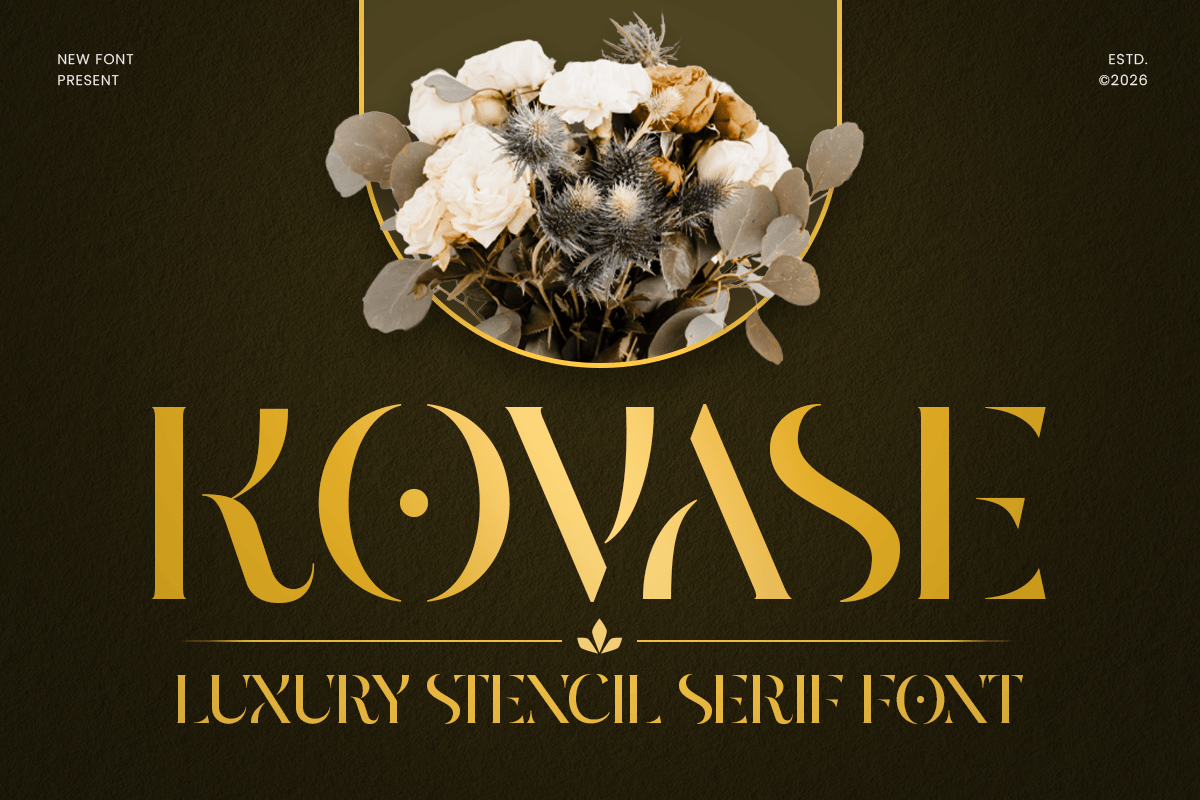
Kovase
-Luxury Stencil Serif Font
Kovase - Luxury Stencil Serif Font
Kovase is a luxury stencil serif font designed with an elegant and distinctive character. Combining classic serif structure with modern stencil details, Kovase creates a sophisticated visual style that feels exclusive, artistic, and timeless. Its refined letterforms bring a premium touch to any creative project.
Perfect for luxury branding, fashion logos, editorial layouts, packaging design, wedding invitations, and high-end product identities, Kovase adds a unique personality to every composition. The balanced serif shapes and stencil-inspired cuts make it ideal for creating memorable headlines, elegant posters, and stylish brand visuals.
Designed for designers who seek a combination of heritage and modern sophistication, Kovase works beautifully across both digital and print environments. From boutique brands to premium campaigns, this luxury serif font delivers a confident and distinctive presence.
Kovase – Luxury Stencil Serif Font Features
• Elegant stencil serif letterforms with premium character
• Perfect for luxury branding, fashion, and editorial projects
• Ideal for logos, packaging, posters, and invitations
• Sophisticated design for print and digital applications
• OpenType features for creative typography flexibility
• Great for headlines, signage, and high-end visual identities
Elevate your visual identity with Kovase – a luxury stencil serif font crafted for timeless elegance and premium designs. ✨